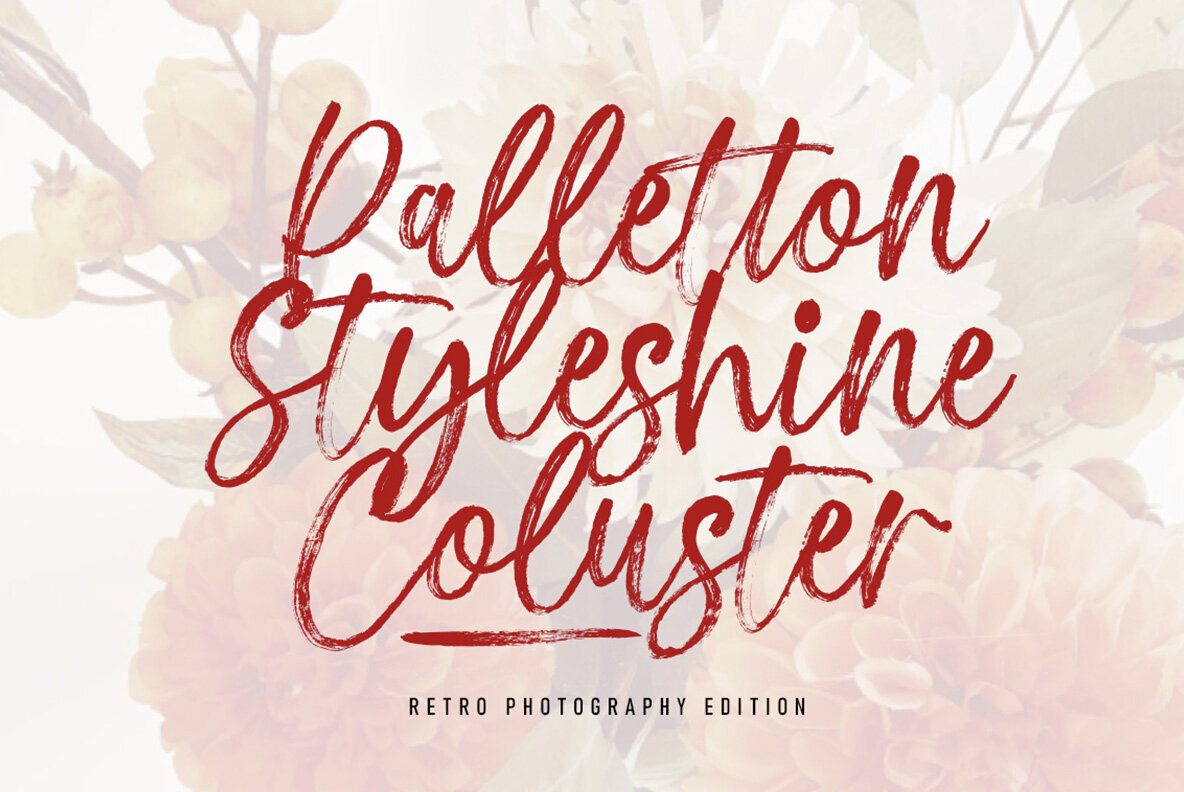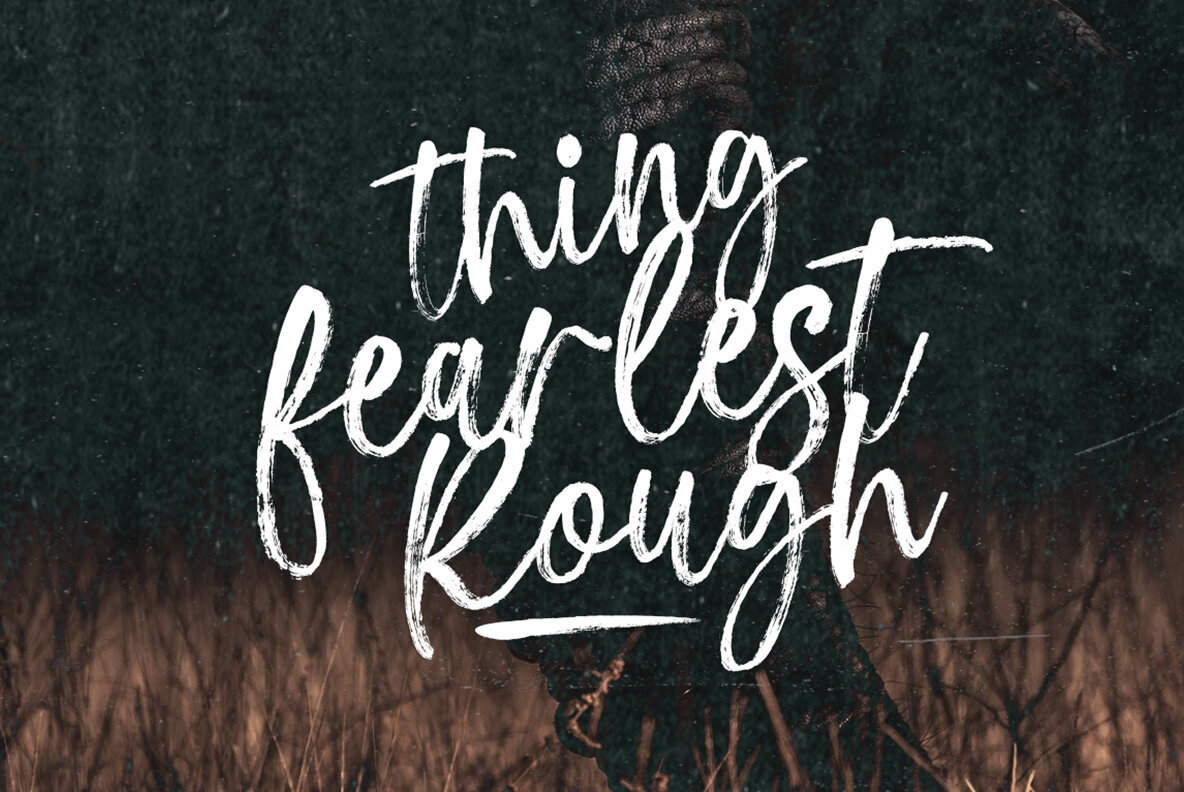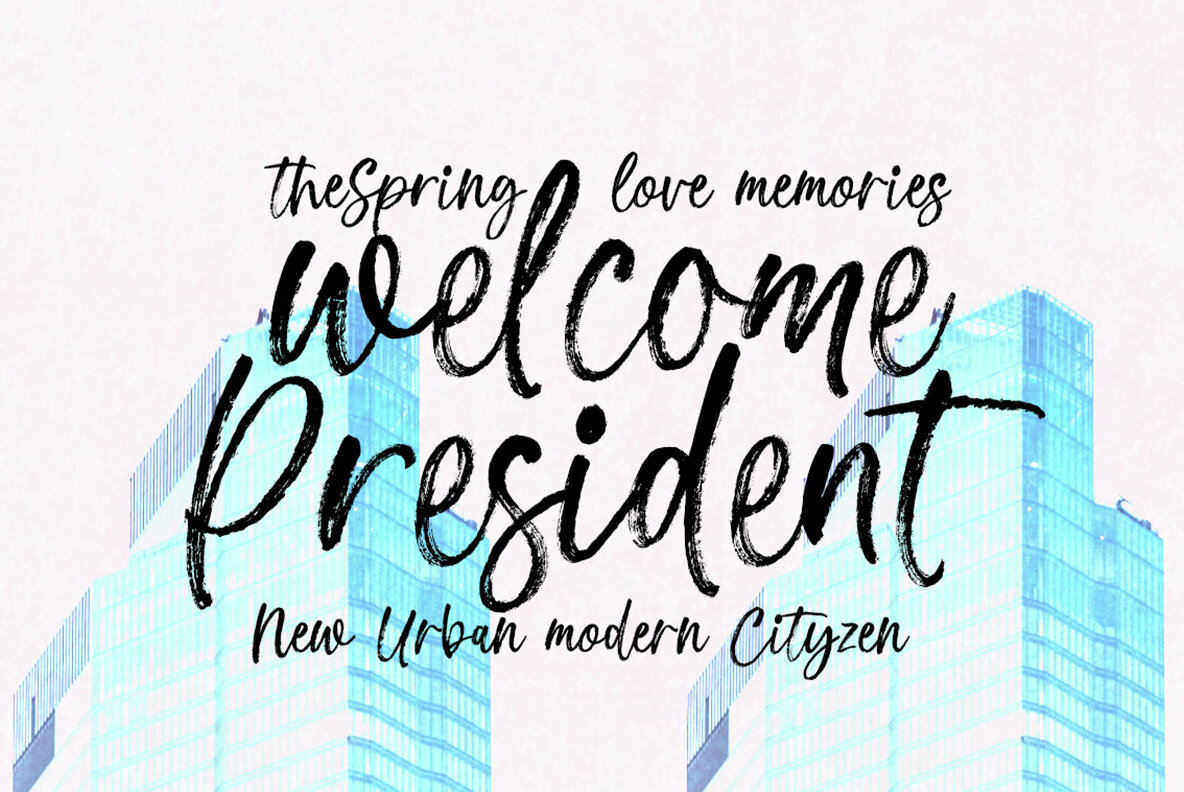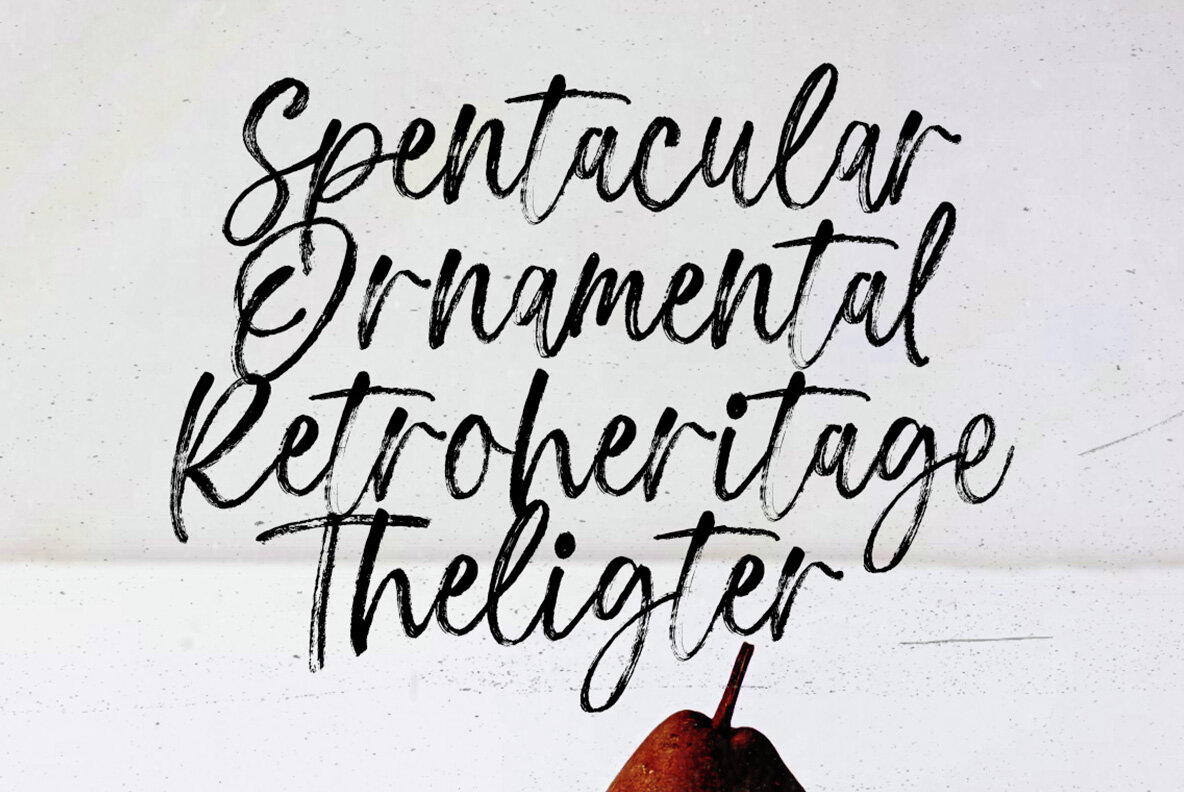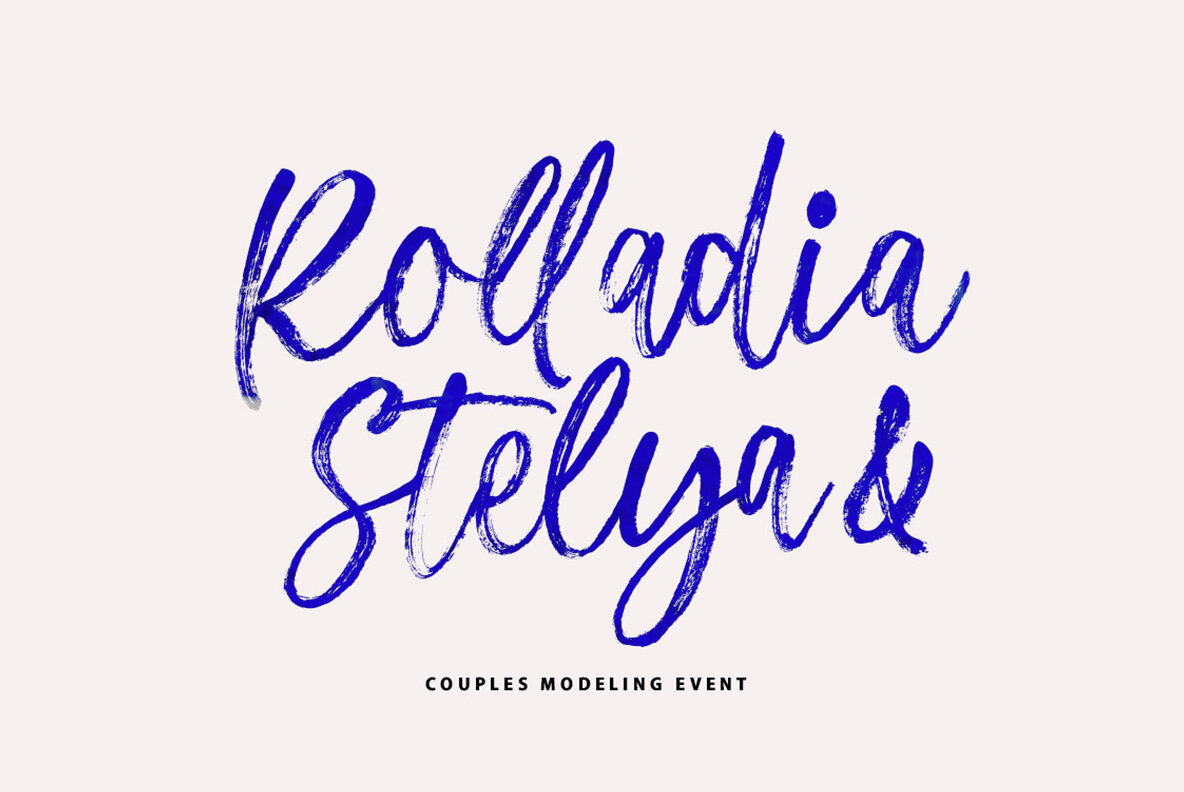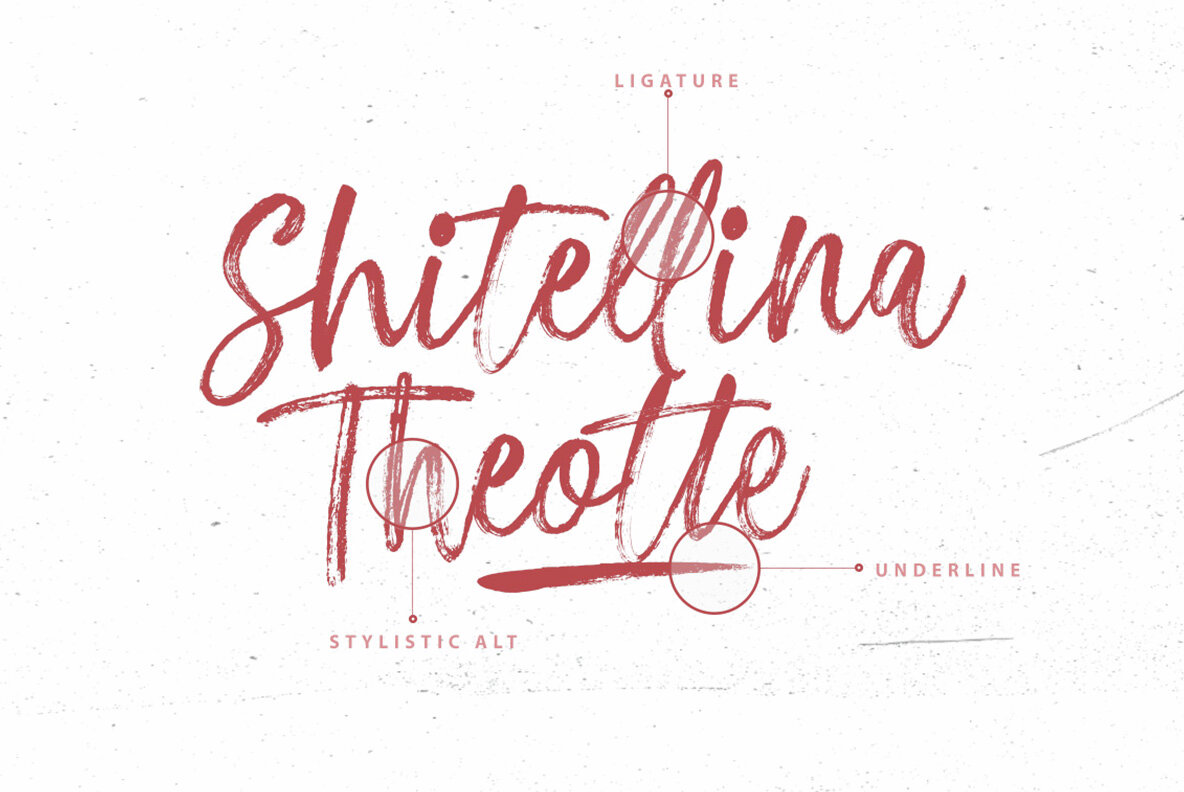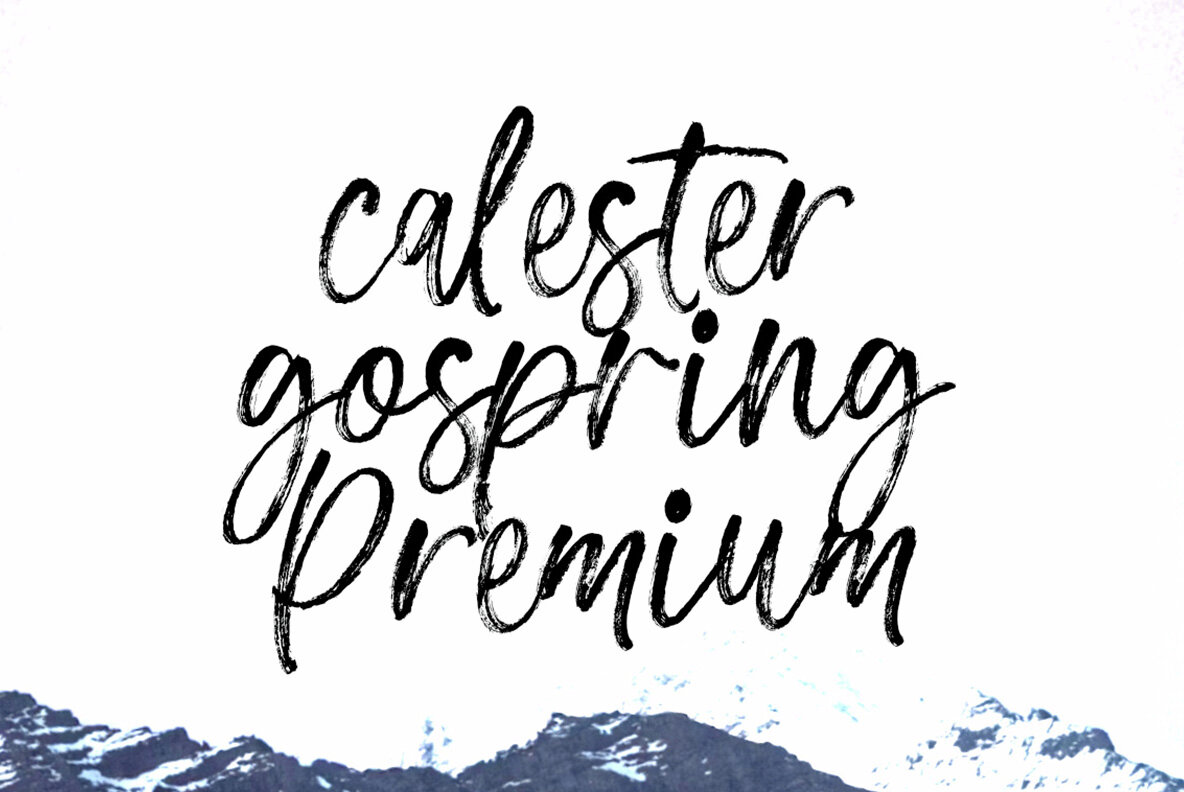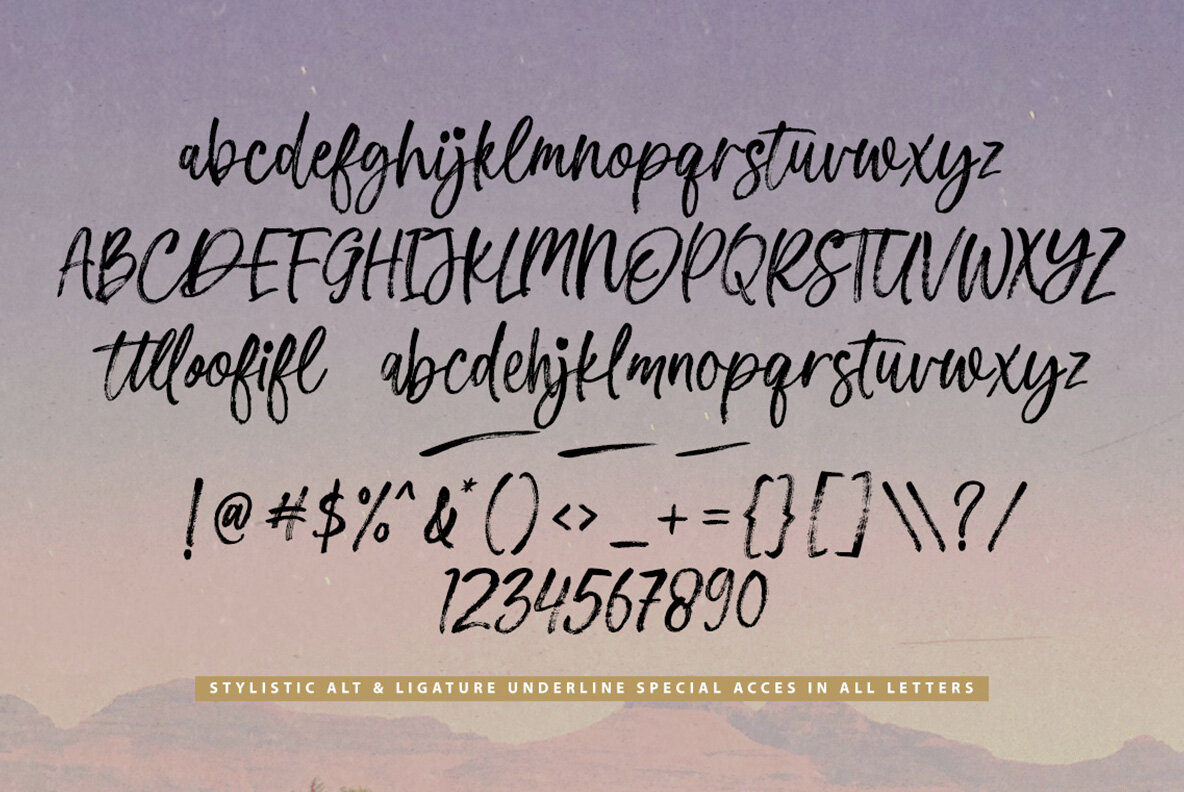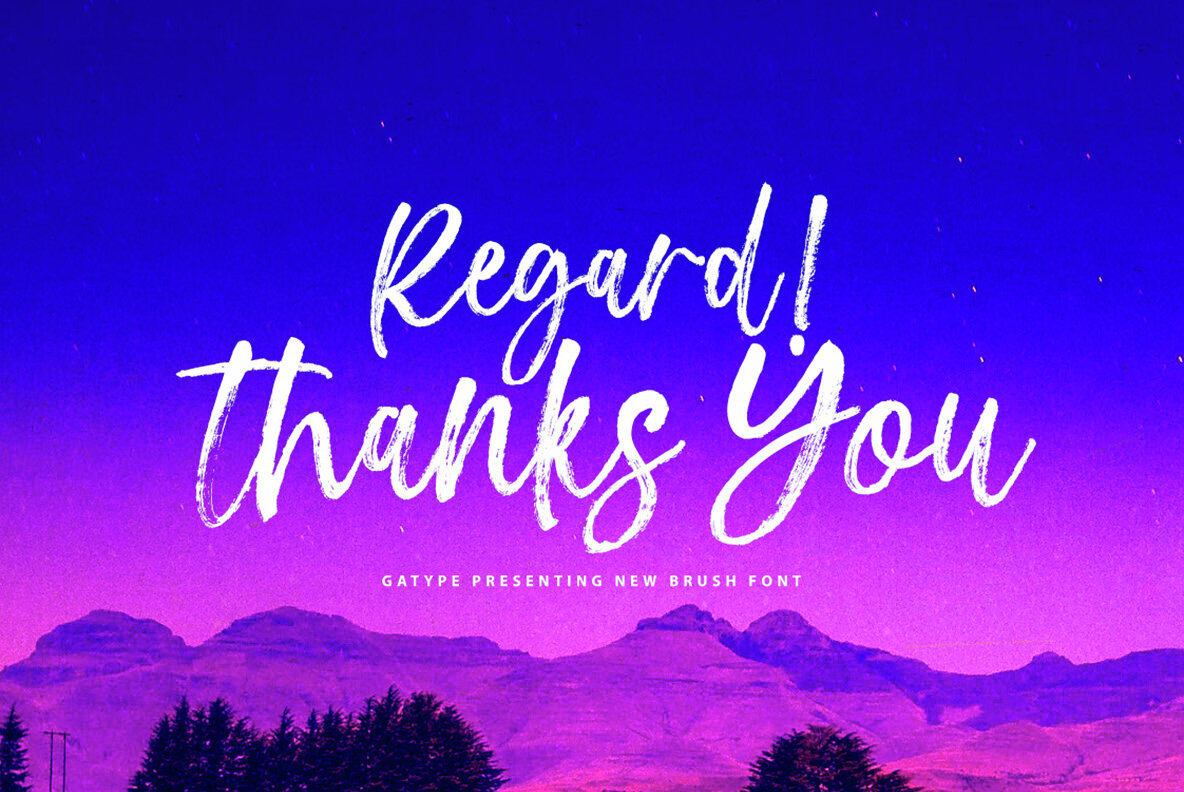
Stepila Font
Stepila Regular
Stepila features an extreme brush cut with sharp corners and interactive straps. This unique typeface comes in three capital-specific sub-families, each with distinct styles and personalities. The bold character separation and thoughtful binding create a typeface that is sturdy, modern, and visually appealing. Included is a special underline combination within its characters, enhancing its versatility. Stepila's meticulously crafted letters ensure your text stands out with a unique flair.